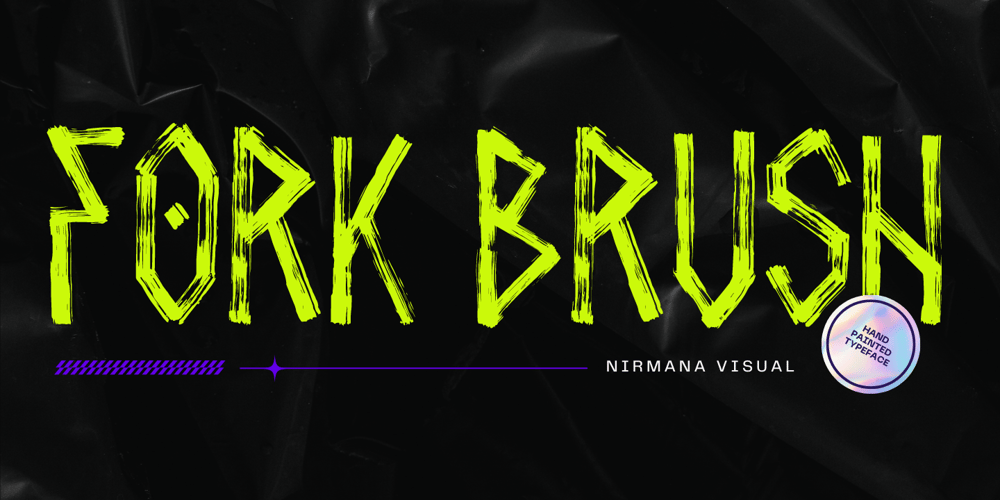
Fork Brush Vector Font Family was designed by Sigit Dwipa and published by Nirmana Visual. Fork Brush Vector contains 1 styles and family package options. Fork Brush inspired by realistic dry brush.all-caps font was hand-drawn with a real acrylic ink,Fork Brush offers beautiful typographic harmony for a diversity of design projects, including logos & branding, social media posts, advertisements & product designs.